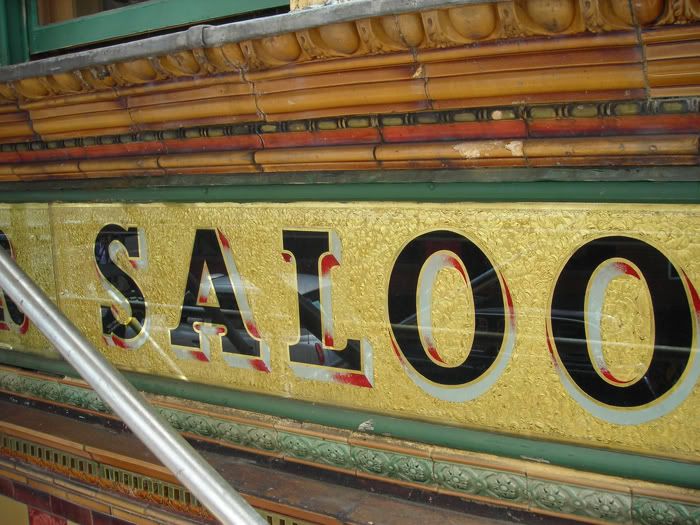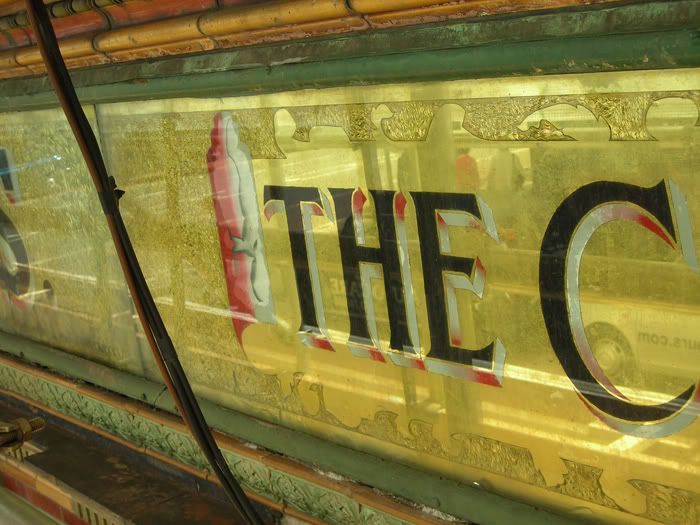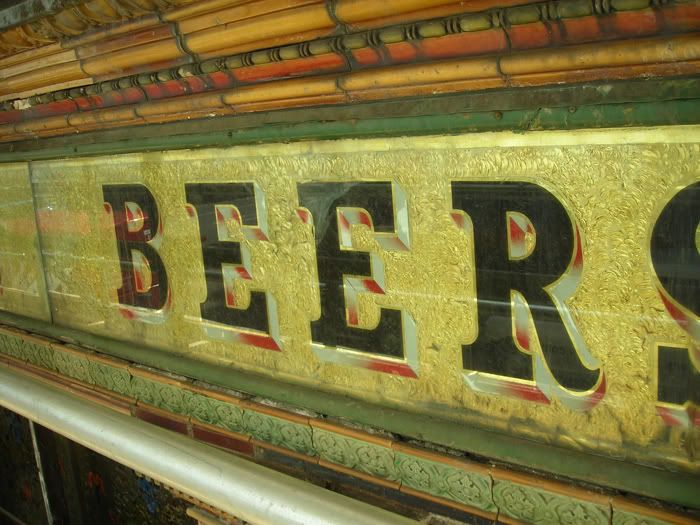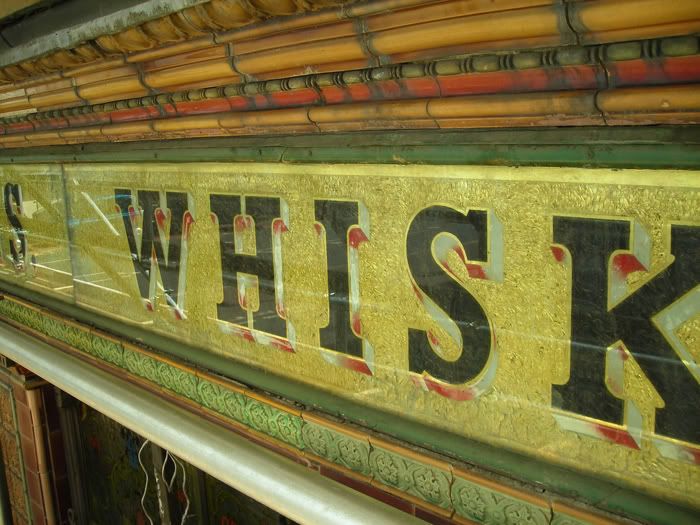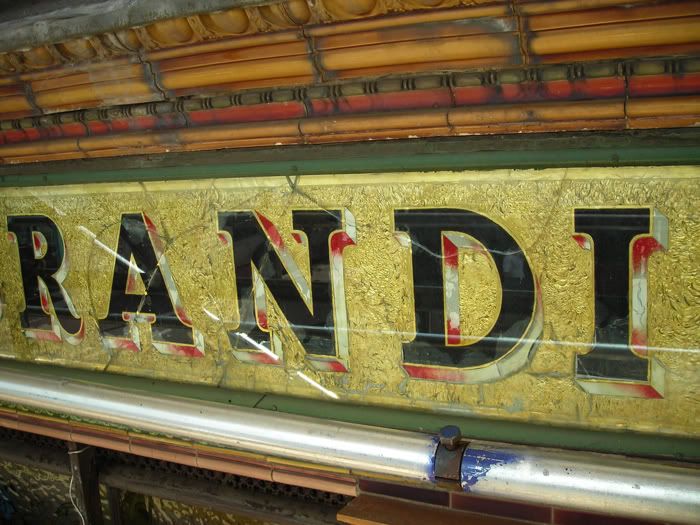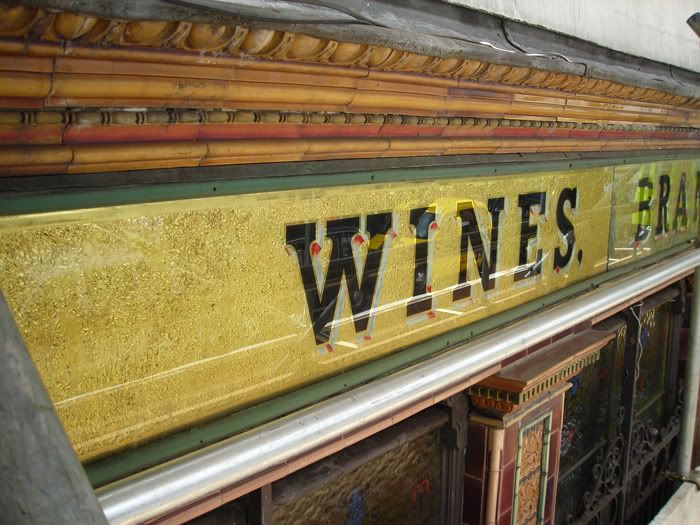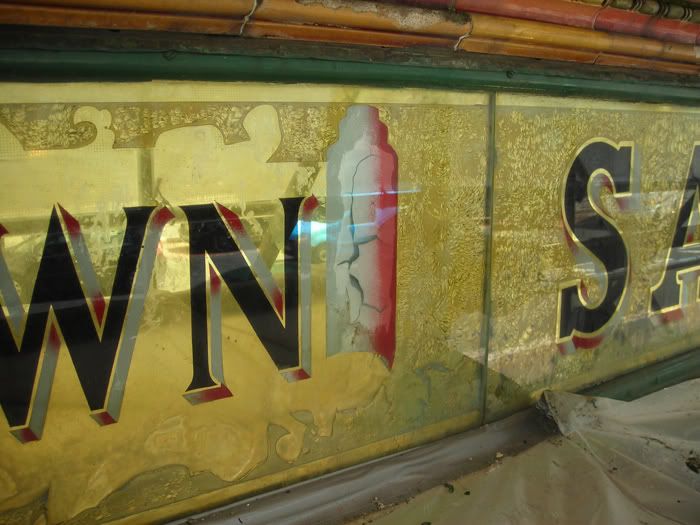
Some images of the glass at the Crown Saloon Bar Belfast. I think these may have been repainted at some time. The backgrounds in places look unfinished The chipping is interesting, I like the colour scheme that goes with the tiles and the rest of the architectural fascia work. The Cherub glass I showed you back along also belongs inside this pub .The bird panels for the inside of this pub are still being made, I will post some pics when finished.
I like the chip and blended shadow effect. I wonder if the name perhaps changed to the Crown and that is why the scroll looks different than the rest. Although the lettering for that area is similar, it does not look like quite the same. I would have thought the scroll area to be a blended color with strong gold letters for the name originally. I have seen some similar in Belfast and Dublin on Findlater's stores so could be the same signwriter (Findlater's were Judi's relatives so we have quite a few photos of their storefronts...last ones about 20 years ago?).